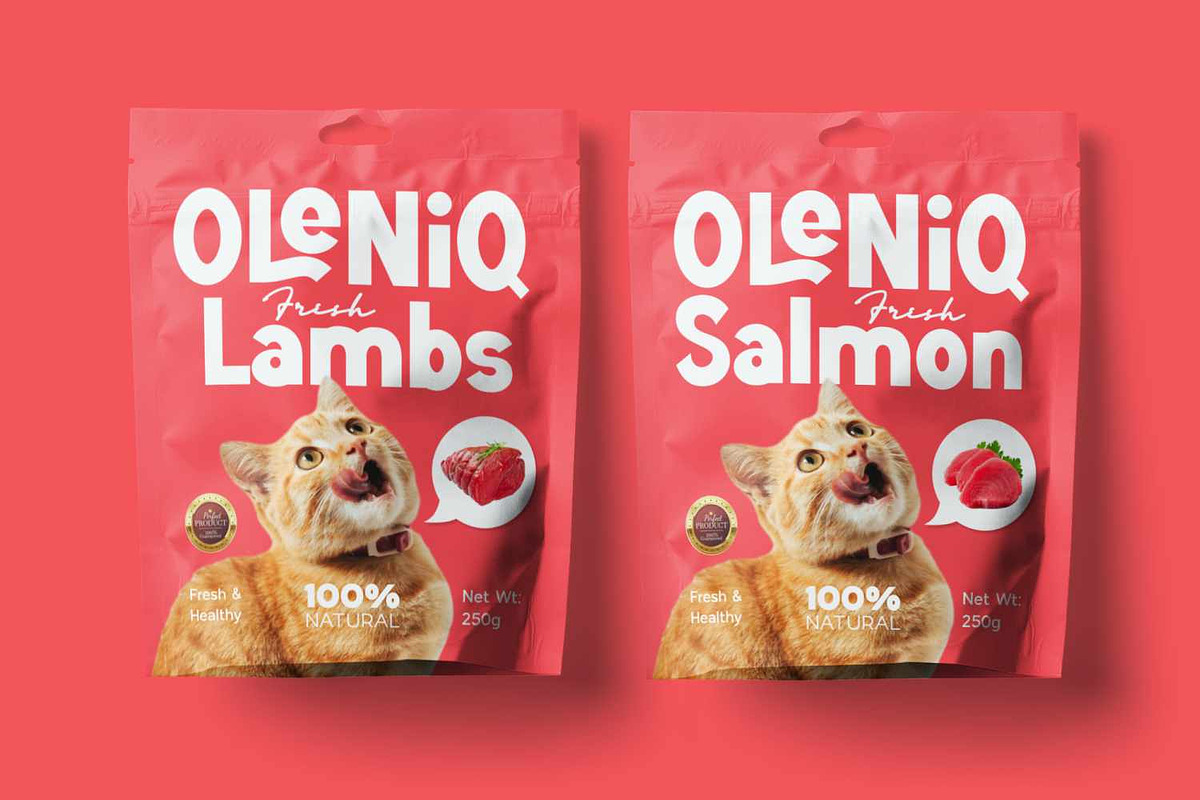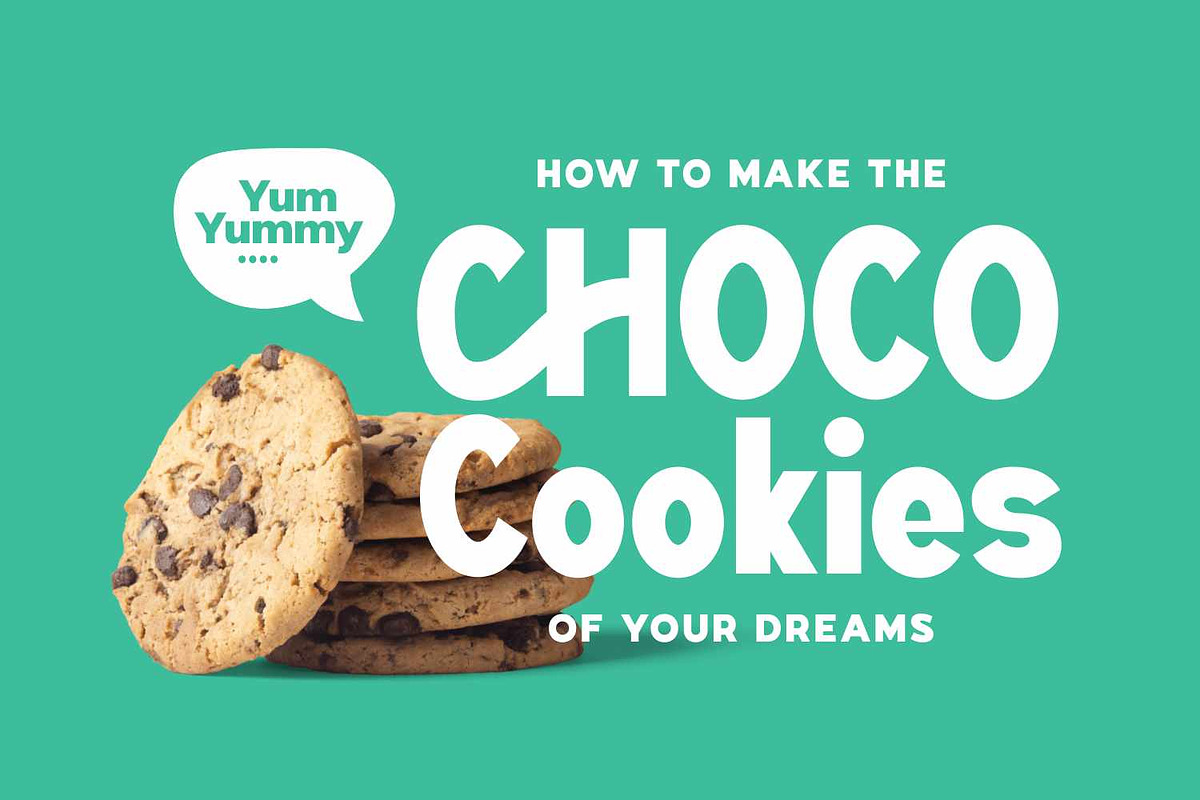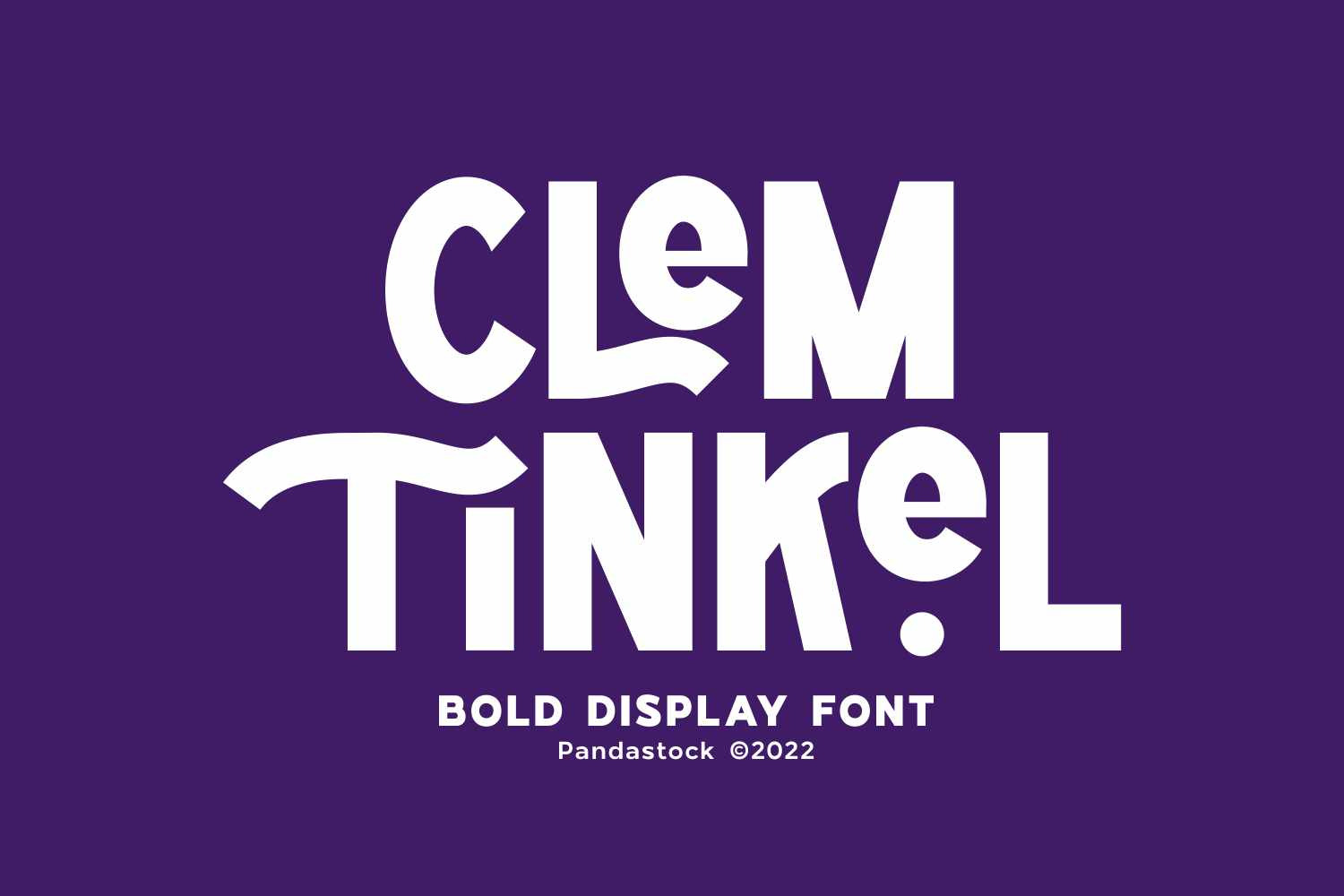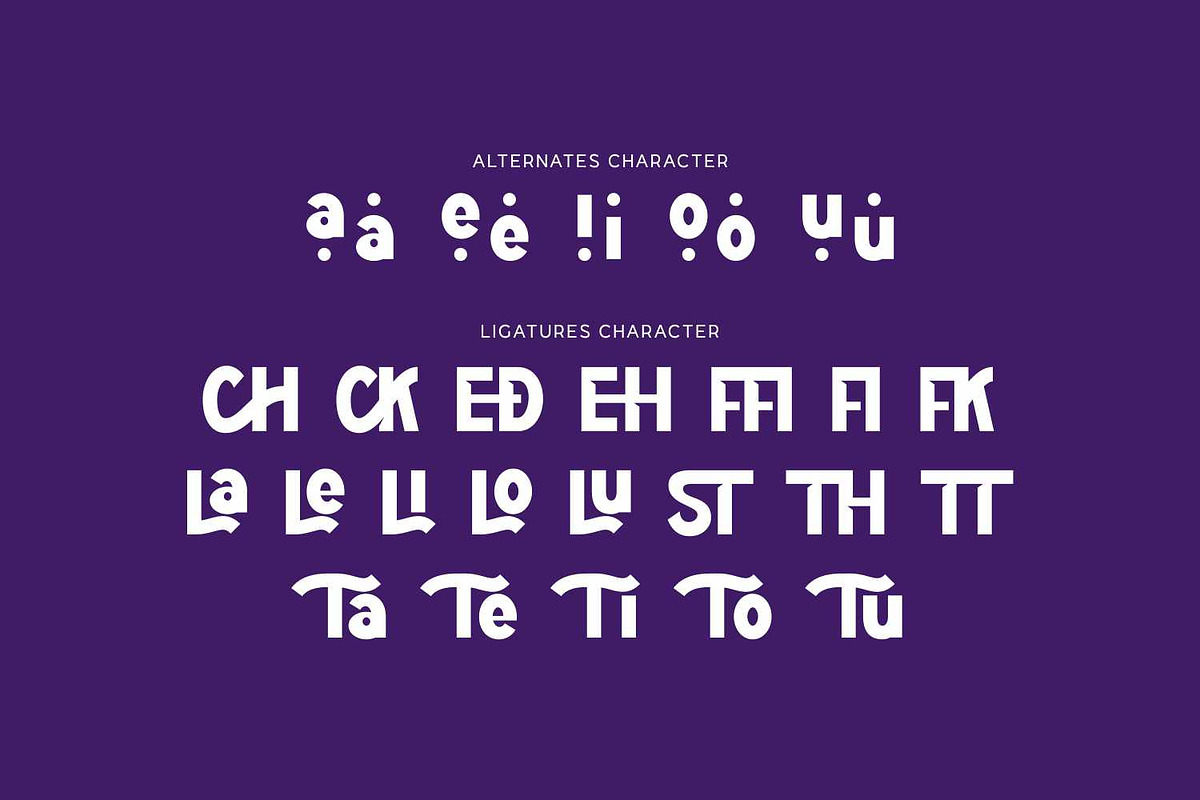
Clem Tinkel - Playful Display Font
Clem Tinkel is a playful display font that blends chunky geometric forms with quirky, organic curves.
Decorative flourishes on select letters like the extended crossbar of the "T" or the curved stem of the "k" give it a handcrafted feel without losing its modern, clean look. This font is ideal for headlines, posters, packaging, social posts, book covers, kids branding, and any creative work that calls for attention grabbing typography with a fun twist.